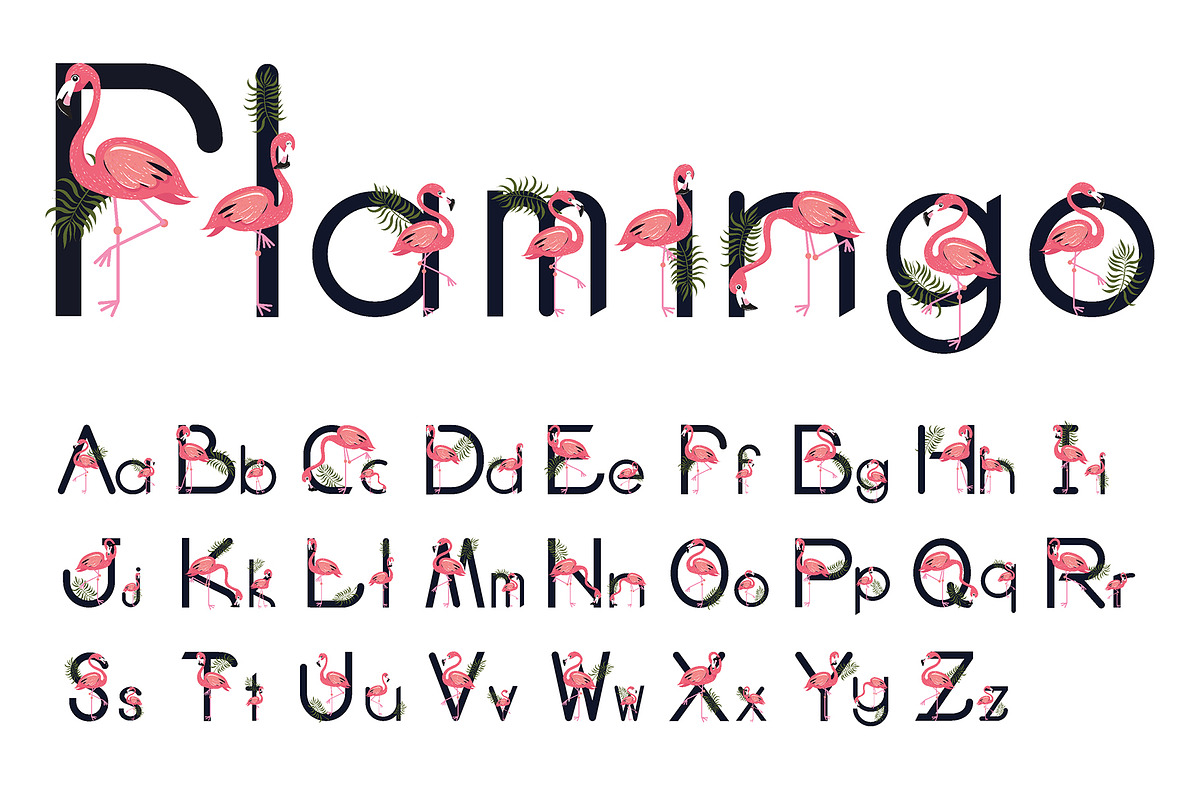
Flamingo Tropical Bird Letter Vector
Flamingos,Tropical Bird Letter Vector Illustration. Can be used for T-shirt print, fashion print design, celebration greeting and invitation card.